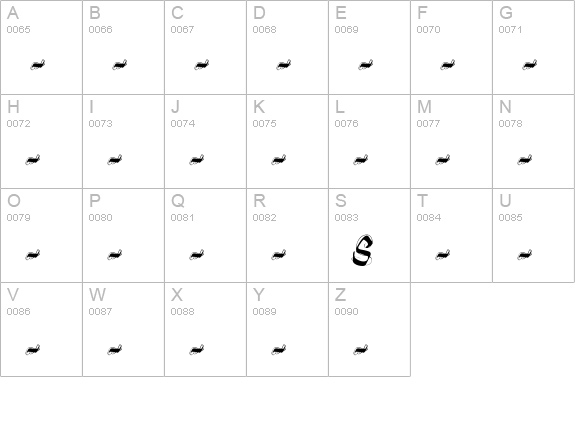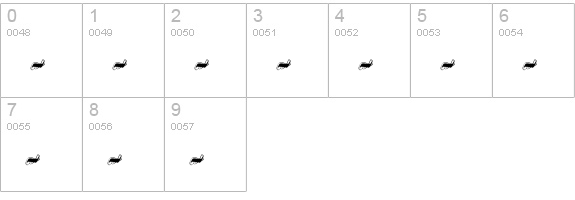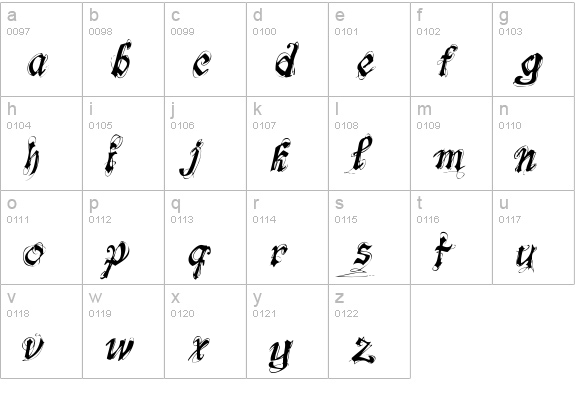
font-lab's Symphony Font Details
The Symphony font by font-lab is a visually striking typeface that combines elegance with a touch of playfulness. With its unique blend of clean lines and intricate curves, Symphony adds a harmonious touch to any creative project. This versatile font is ideal for a wide range of applications, from branding and advertising to editorial design and web content. Its well-balanced letterforms make it easily legible in both small and large sizes, ensuring that your message comes across loud and clear. One of the standout features of Symphony is its extensive character set, which includes a wide range of ligatures, alternates, and swashes. These additional glyphs allow you to add a personal touch to your designs and truly make them your own. But perhaps the most enticing aspect of Symphony is that it is available for free download at FontsMarket.com. Yes, you read that right – this stunning font can be yours at no cost. Whether you're a professional designer or a hobbyist, Symphony provides a valuable addition to your font library without putting a dent in your budget. So why wait? Enhance your creative projects with the captivating Symphony font today. Download it for free at FontsMarket.com and unleash your artistic vision with this remarkable typeface.